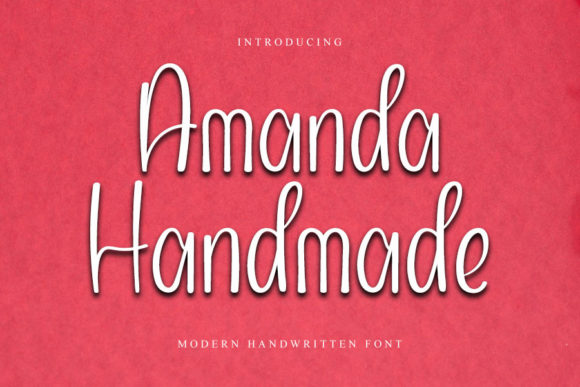
The Amanda Handmade Font: A Timeless Elegance for Your Designs
Have you ever been in the middle of a design project, and suddenly, you just can’t seem to find the right font? I recall a particularly frustrating experience when a client asked for a elegant and classy look for their branding, and I was stuck with a sea of generic fonts that just didn’t cut it. That’s when I stumbled upon the Amanda Handmade font, and it completely transformed my design.
A Personal Review: What I Love About Amanda Handmade
The Amanda Handmade font is a lovely and delicate script handwritten font that exudes elegance and class. Here’s what I love about it:
- ✨ Elegant and refined: The font has a sophisticated feel to it, making it perfect for high-end branding, wedding invitations, and luxury product designs.
- ✅ Highly legible: Despite its delicate nature, the font is surprisingly easy to read, even at smaller sizes.
- 💫 Versatile: The font comes with a range of OpenType features, glyphs, and stylistic alternates, making it suitable for a wide range of design applications.
While the Amanda Handmade font is exceptional, there are a few minor quirks to be aware of:
- ⚠️ Limited use for body text: While the font is legible, it’s still a script font, and may not be the best choice for longer blocks of text.
- 🤔 Some characters may require manual kerning: As with any font, you may need to adjust the kerning for certain character combinations to achieve optimal results.
The Designer Inspiration Behind Amanda Handmade
The Amanda Handmade font was crafted with love and care by a talented type designer who sought to create a font that would bring a touch of elegance to any design project. The designer’s inspiration came from classic calligraphy and handwriting, combined with a modern sensibility.
| Q: What is the Amanda Handmade font best suited for? | A: The Amanda Handmade font is ideal for designs that require an elegant and refined look, such as luxury branding, wedding invitations, and high-end product designs. |
| Q: Is the Amanda Handmade font suitable for body text? | A: While the font is legible, it’s still a script font, and may not be the best choice for longer blocks of text. It’s best used for headings, titles, and short paragraphs. |